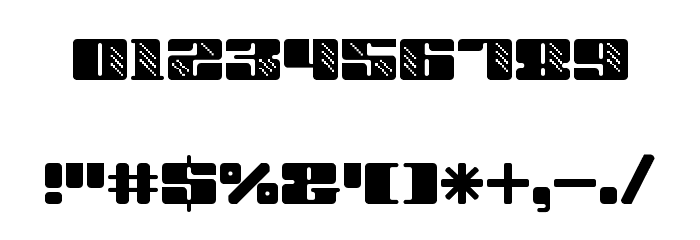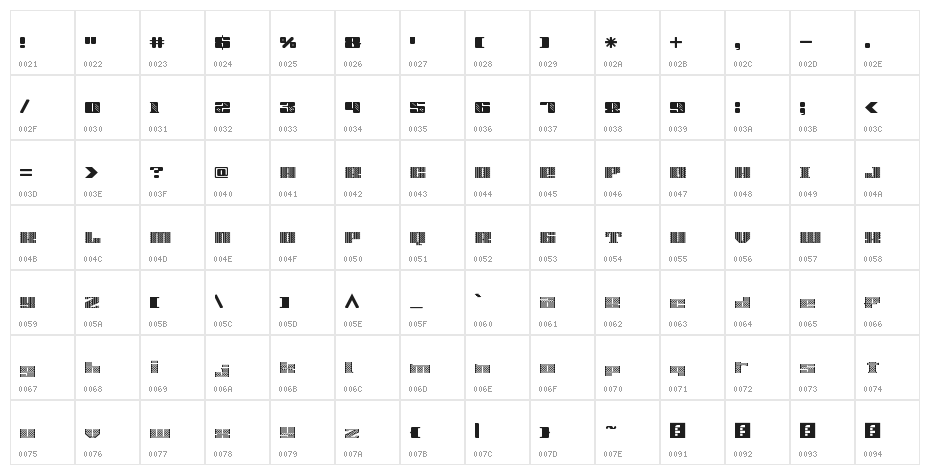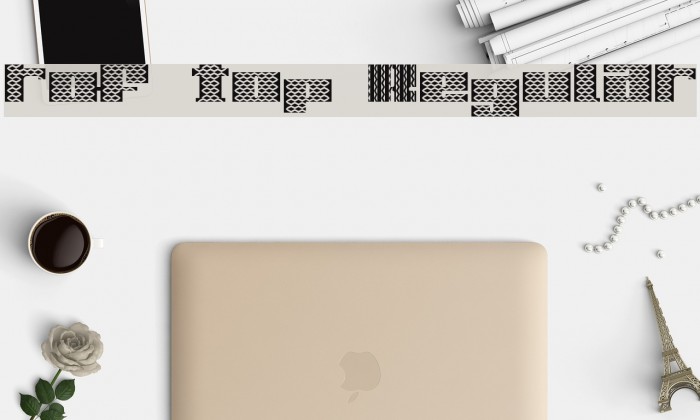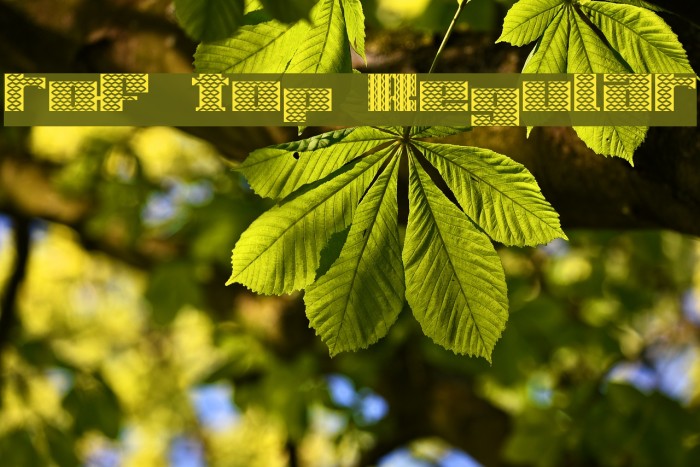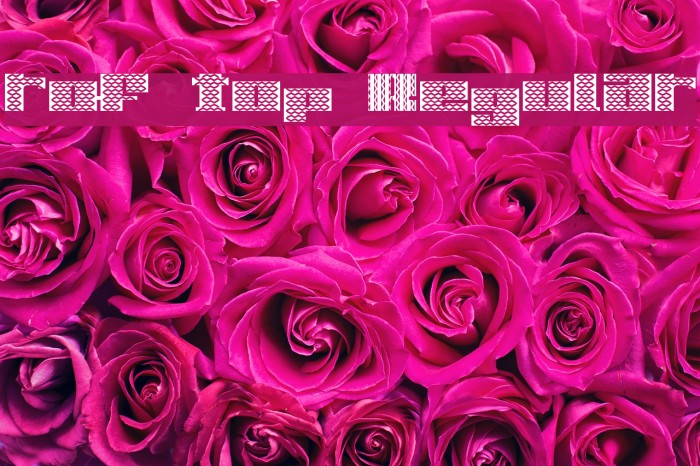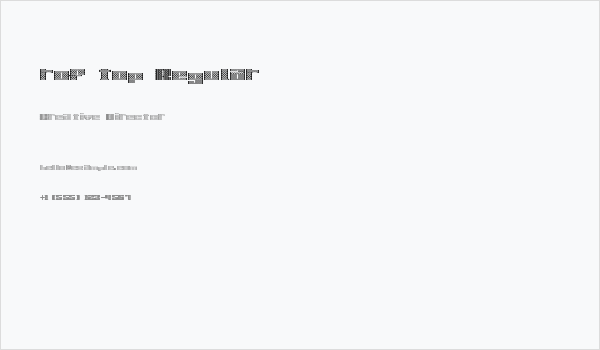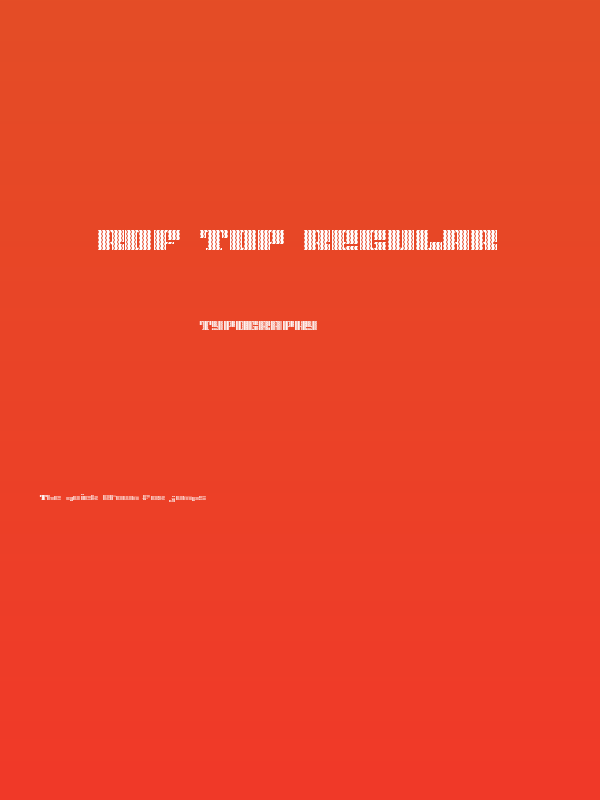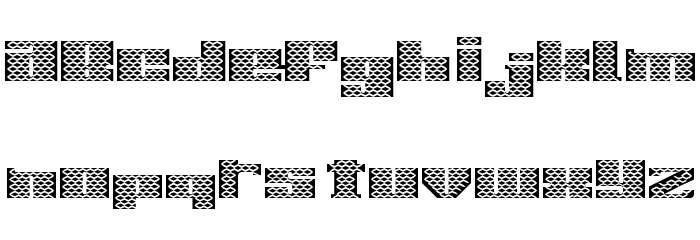
rof top Regular Font
rof top Regular Description
This font features a unique, decorative style with a textured, grid-like pattern filling each character. The uppercase and lowercase letters, as well as the numbers, maintain a consistent design, showcasing a bold and impactful presence. The special characters are equally stylized, adding to the font's cohesive look. The overall aesthetic is modern and eye-catching, making it suitable for projects that require a strong visual impact.
| Proposed Projects | Ideal for posters, logos, branding materials, and any design needing a striking, modern touch. |